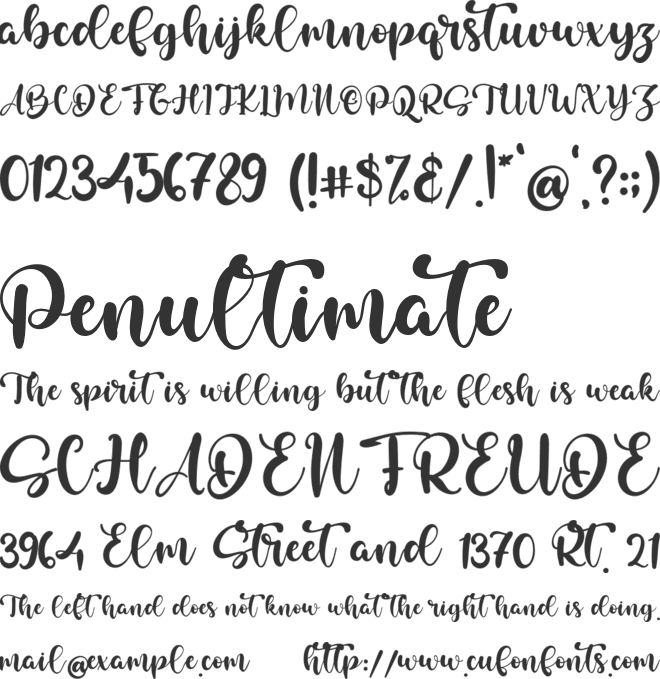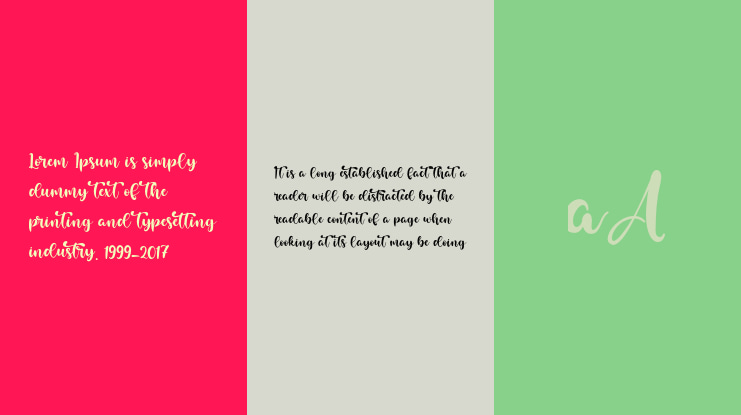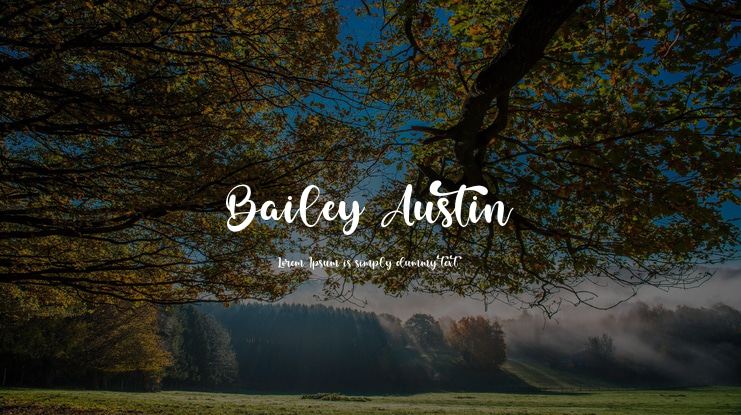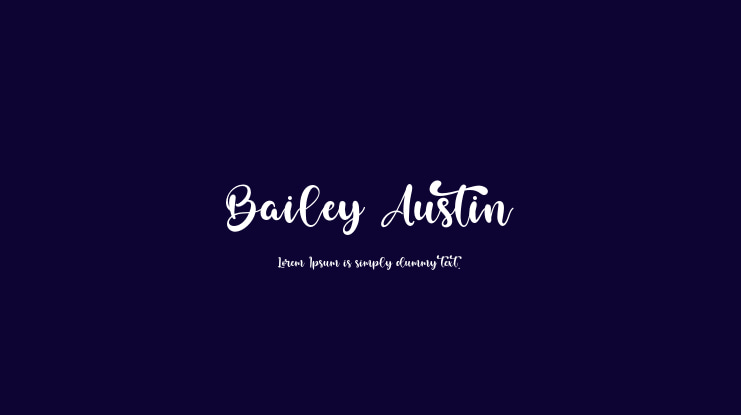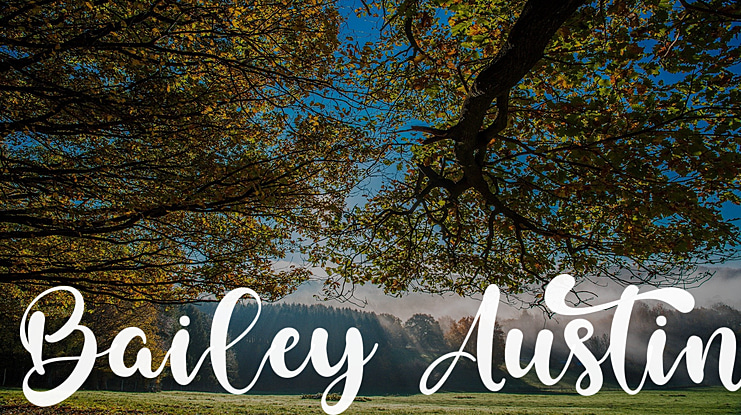
Bailey Austin Font
Bailey Austin A Luxury Signature Type Font, A collection of letters and numbers suitable your projects also great for Logotype, Branding Design, Logo Design, Digital Lettering Arts, T-Shirt/Apparel, Poster, Magazine, Signs, Advertising Design, and any design needsClick our website :https://staircaselab.com/product/bailey-austin/